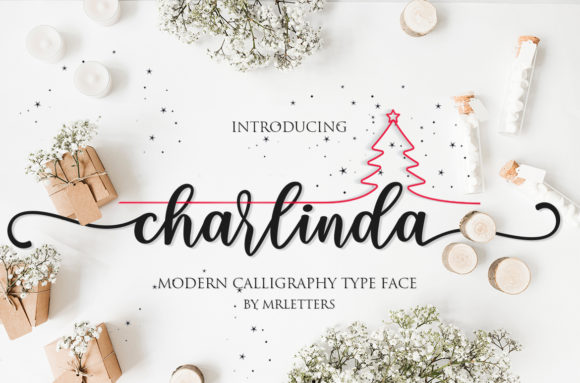
Introducing Charlinda Font, a delightful and amiable script that will add a touch of elegance to your creative projects. Designed by the talented Mrletters, this font is a true gem, crafted with smooth lines and an undeniable charm. Charlinda is not just another script font; it's a must-have for anyone seeking to elevate their designs with a touch of sophistication and creativity.
With its timeless appeal, Charlinda Font is perfect for a wide range of applications. Whether you're looking to create stunning quotes, enhance your branding, design captivating invitations, or explore countless other occasions, this font has got you covered. Its versatility knows no bounds, making it an invaluable asset for both professional designers and DIY enthusiasts.
What sets Charlinda Font apart is its ability to evoke emotions effortlessly. Its graceful curves and fluid strokes create a sense of warmth and friendliness, instantly captivating anyone who lays eyes on it. Every letter is meticulously crafted, resulting in a harmonious blend of elegance and playfulness. Your designs will exude a unique charm that will leave a lasting impression on your audience.
But don't just take our word for it; let Charlinda Font speak for itself. Allow your creativity to soar as you explore the endless possibilities this font offers. Craft beautiful handwritten quotes that inspire and motivate. Enhance your brand identity with a touch of sophistication and professionalism. Or create stunning invitations that leave your guests in awe.
Whether you're a professional designer or someone looking to add a touch of magic to your personal projects, Charlinda Font is the perfect companion. It will transform your designs from ordinary to extraordinary, ensuring that you stand out from the crowd. Let your imagination run wild and see how Charlinda Font can bring your visions to life.